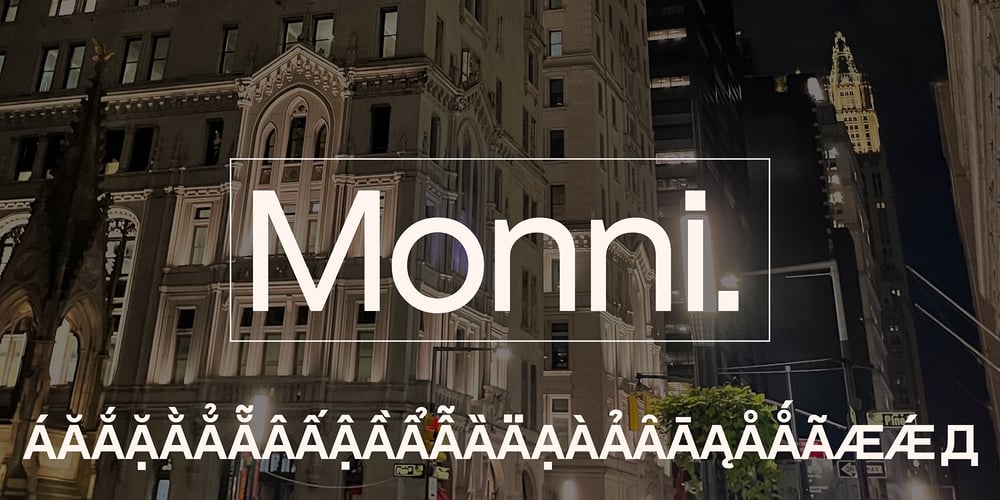
Monni
Monni font
Monni Font Family was designed by Matt Chansky and published by Matt Chansky. Monni contains 10 styles and family package options. Meet Monni, a clean and balanced sans-serif typeface family—fresh-faced and cosmopolitan with a high x-height. Monni sports finely crafted angles, complemented by confident squared punctuation. This sans-serif has a universal appeal accentuated by select modern angles. Perfect for campaign work with its memorable lines, clear consistency, and optimization for screens. Noteworthy for both headline and body copy needs. Monni is sure to aid in brand retention. Monni is generously multilingual, including Ukrainian and comes in 5 weights, from light to black. With nearly 800 total glyphs, Monni’s versatility will make an excellent addition to any professional font collection.